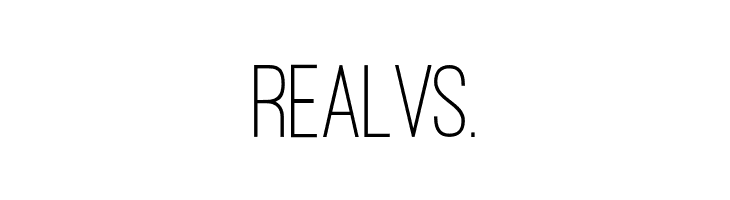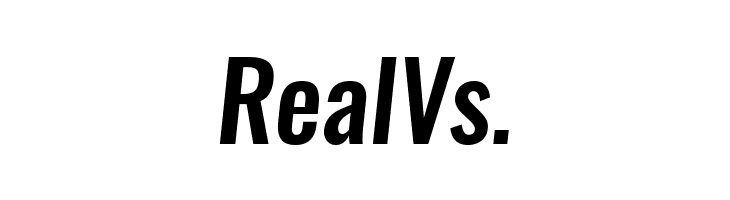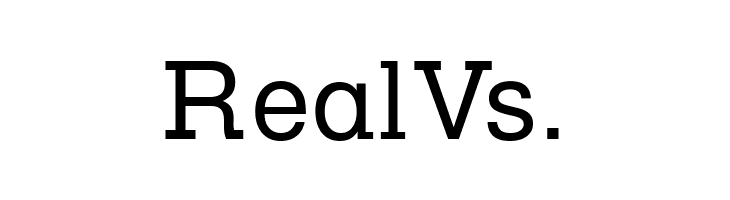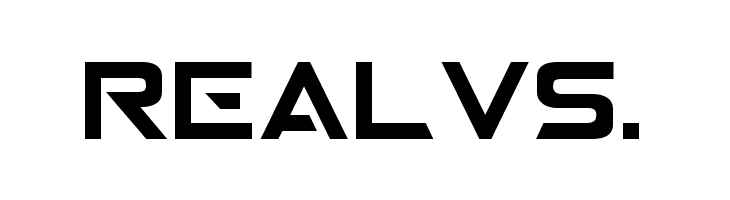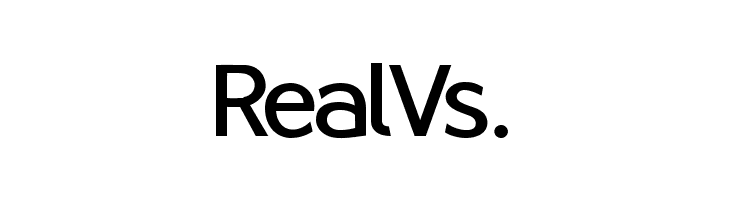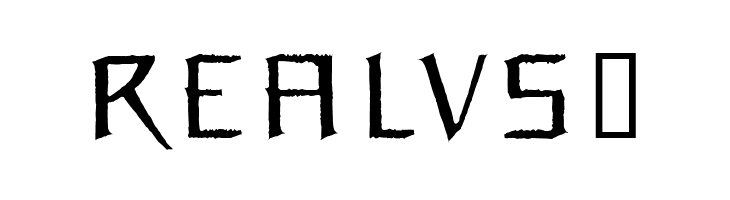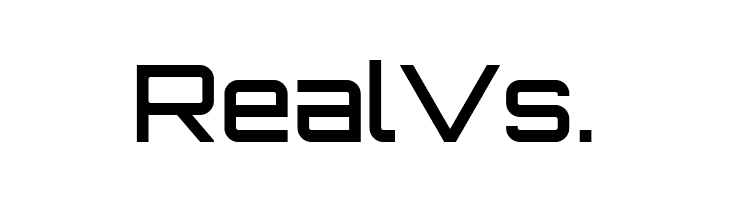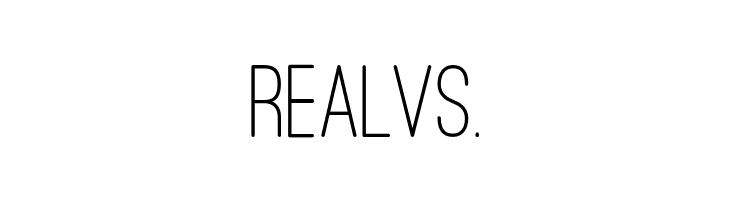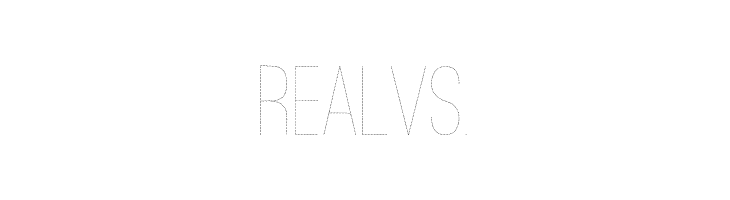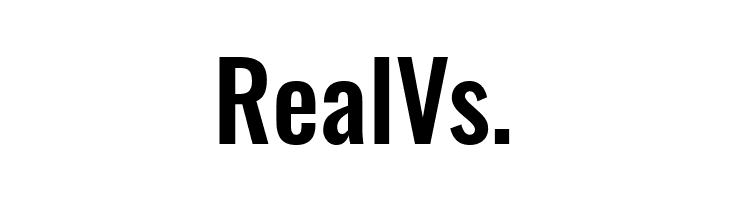
A playful, rounded font with a hand-drawn, informal style.
A futuristic, geometric font with clean lines and a tech-inspired aesthetic.
A futuristic, geometric font with clean lines and angular shapes.
A modern, elegant font with balanced proportions and medium weight.
A modern oblique font with smooth, slanted letterforms and moderate contrast.
A modern, slightly slanted font with balanced proportions and clear numerals.
A playful, hand-drawn font with bold strokes and a whimsical style.
A modern, geometric sans-serif font with a clean and balanced design.
A decorative and modern font with bold, patterned uppercase and clean lowercase letters.
A modern sans-serif font with a clean and balanced design.
A playful, bold, and hand-drawn font with rounded edges.
A modern serif font with clean lines and balanced proportions.
A modern, dashed font with a minimalist and innovative style.
A modern, dashed line font with a minimalist and airy design.
A modern, geometric sans-serif font with tall, narrow characters and a sleek appearance.
A modern, rounded sans-serif font with a clean, minimalist design.
A modern, rounded sans-serif font with a clean and approachable style.
A bold, modern sans-serif font with a slightly condensed style.
A bold, modern sans-serif font with clean lines and geometric structure.
A modern, slightly condensed sans-serif font with an italic slant.
A playful, modern font with geometric and cursive elements.
A sophisticated script font with flowing, cursive strokes and elegant flair.
A playful, hand-drawn font with tall, narrow letterforms and decorative lowercase letters.
A playful, bold font with thick, rounded, hand-drawn characters.
A bold, futuristic font with angular, geometric lines.